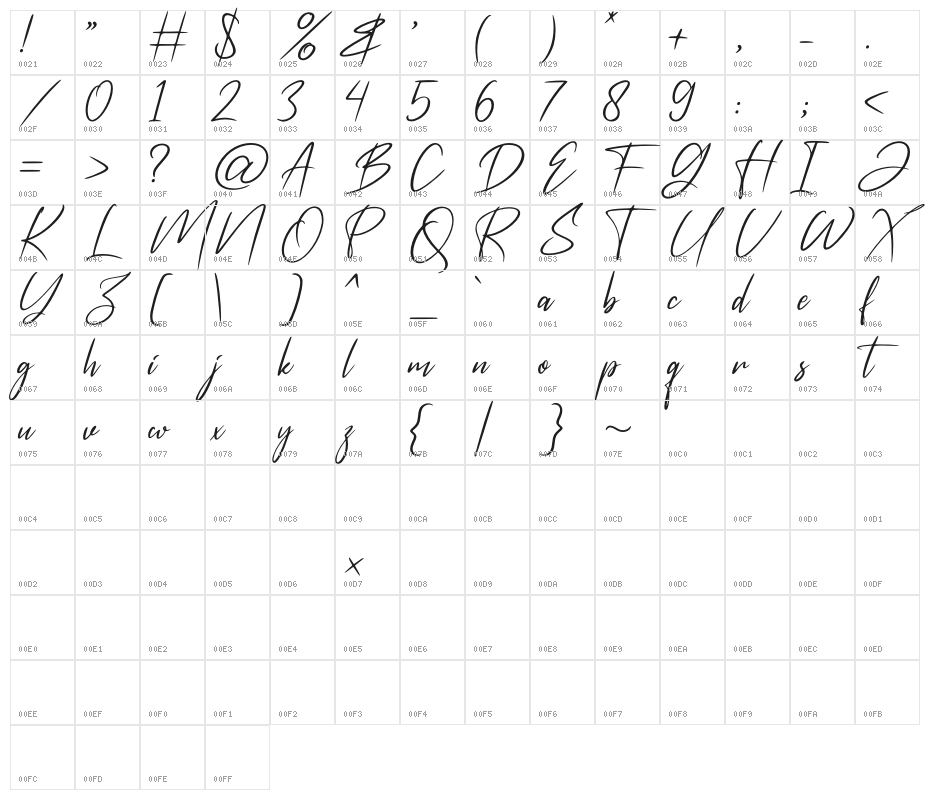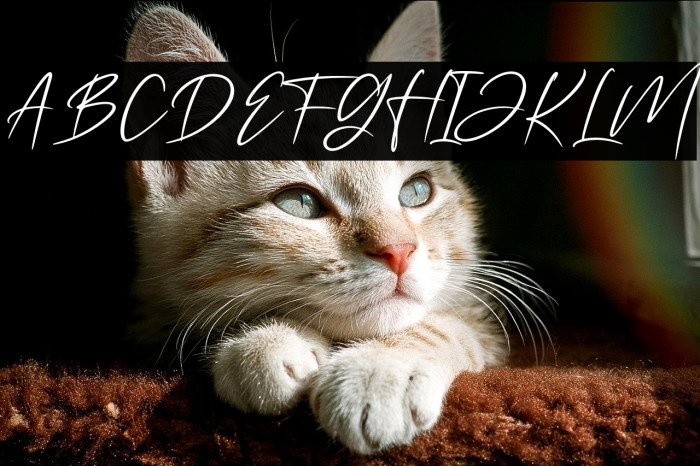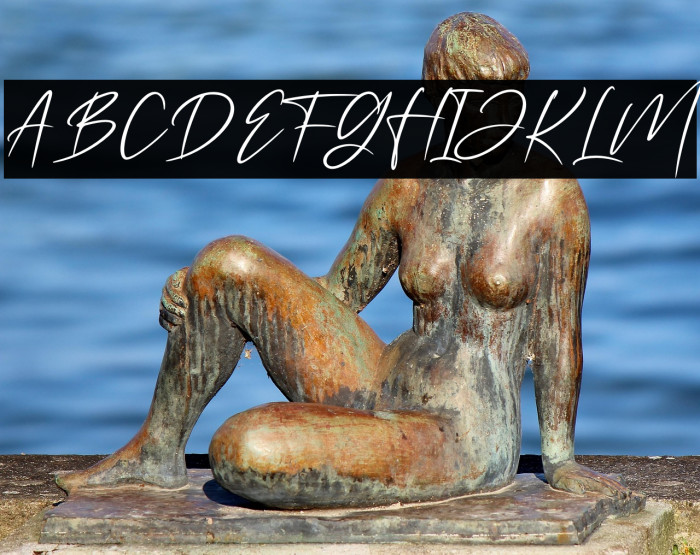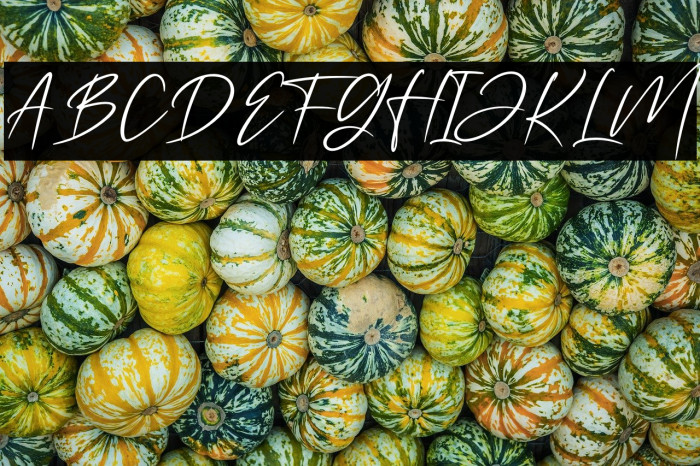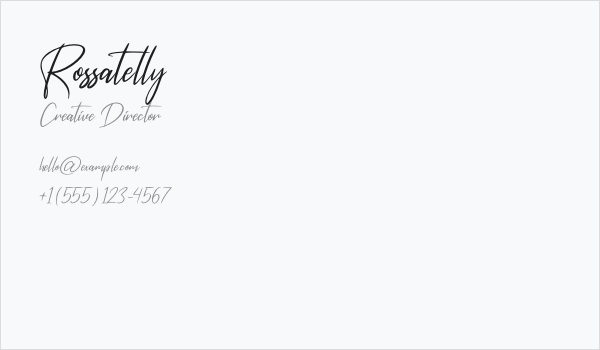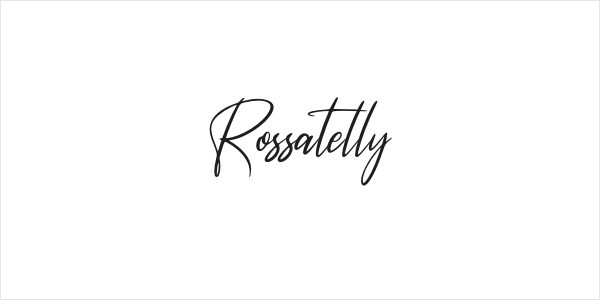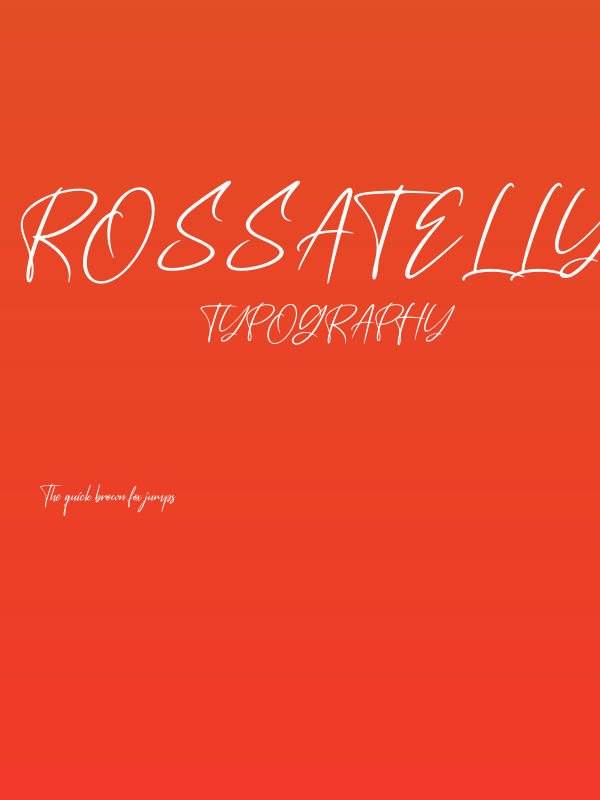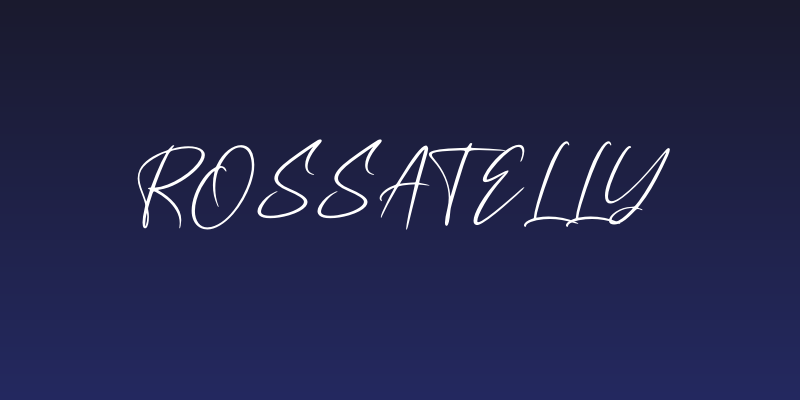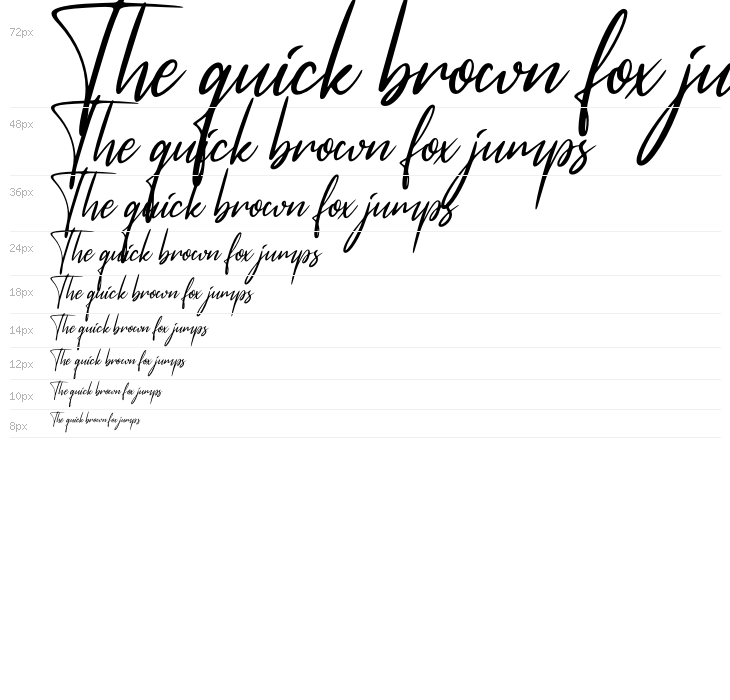
Rossatelly Font
Rossatelly Description
This font exudes a dynamic and fluid style, characterized by its cursive script that mimics elegant handwriting. The uppercase letters are tall and slender, with a slight slant that adds a sense of motion and grace. The lowercase letters are more compact, maintaining the cursive flow with smooth, connected strokes. The numerals are consistent with the overall style, featuring a similar slant and fluidity. Special characters are seamlessly integrated, maintaining the script's cohesive appearance. The font's overall aesthetic is both sophisticated and approachable, making it suitable for a variety of creative applications.
| Overall Style | Elegant, Handwritten |
| Proposed Projects | Ideal for wedding invitations, personal branding, elegant logos, and stylish packaging designs. |